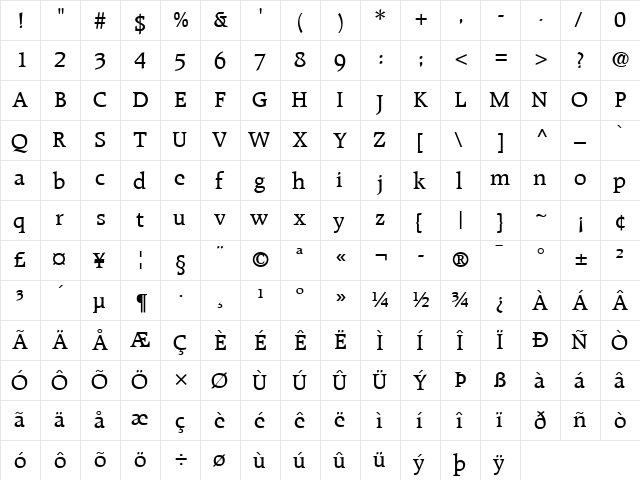
Raleigh LT Medium Regular Font Preview
Raleigh LT Medium Regular
Design Context for Raleigh LT Medium Typeface
Raleigh LT Medium offers clean, dependable letterforms without strong stylistic allegiance, making it a practical choice for designers who need flexibility. Its slender proportions lend an understated elegance to any composition.